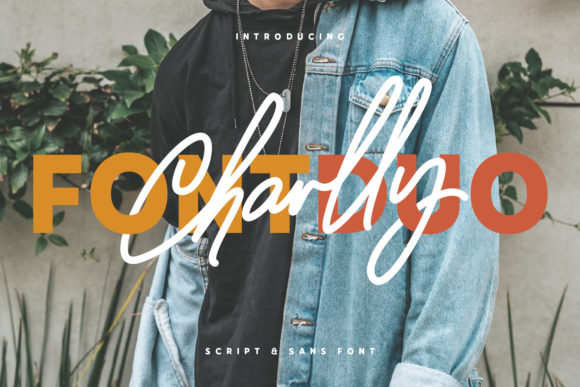
Charlly Font: Elevate Your Designs with Elegance and Chic
In the world of typography, fonts play a crucial role in conveying the tone and personality of a design. When it comes to creating elegant and chic designs, the right font combination can make all the difference. This is where Charlly Font and Charlly Duo come in – a match made in heaven that can elevate your designs to new heights. In this article, we’ll explore the world of Charlly Font and Charlly Duo, and how combining these two display fonts can give your next design an unparalleled level of sophistication.
What is Charlly Font?
Charlly Font is a stunning display font that exudes elegance and refinement. With its sleek lines, beautiful curves, and intricate details, Charlly Font is perfect for designs that require a touch of luxury and sophistication. Whether you’re working on a branding project, a wedding invitation, or a high-end product advertisement, Charlly Font is sure to make a lasting impression.
One of the standout features of Charlly Font is its versatility. It can be used in a variety of design contexts, from headlines and titles to body text and captions. Its clean and crisp lines make it easy to read, even at small sizes, while its elegant curves and flourishes add a touch of personality and flair.
What is Charlly Duo?
Charlly Duo, on the other hand, is a font combination that pairs Charlly Font with a complementary font, creating a match made in heaven. The duo is designed to provide a harmonious and balanced look, with each font complementing the other’s strengths and weaknesses. The result is a font combination that is both elegant and chic, perfect for designs that require a high level of sophistication.
Charlly Duo is more than just a font combination – it’s a design solution that can elevate your work to new heights. By pairing Charlly Font with a complementary font, you get a unique and harmonious look that is sure to capture the attention of your audience.
Why Combine Charlly Font and Charlly Duo?
So, why combine Charlly Font and Charlly Duo? The answer lies in the benefits that this font combination offers. By pairing these two display fonts, you get:
- Elegance and Sophistication: Charlly Font and Charlly Duo are designed to provide an elegant and sophisticated look that is perfect for high-end designs.
- Versatility: The font combination can be used in a variety of design contexts, from branding and advertising to wedding invitations and event marketing materials.
- Harmony and Balance: The fonts are designed to work together in harmony, creating a balanced look that is easy on the eyes.
- Personality and Flair: The font combination adds a touch of personality and flair to your designs, setting them apart from the competition.
How to Use Charlly Font and Charlly Duo
Using Charlly Font and Charlly Duo is easy. Here are some tips to get you started:
- Pair Charlly Font with a Complementary Font: Experiment with different font combinations to find the perfect match for Charlly Font.
- Use Charlly Font for Headlines and Titles: Take advantage of Charlly Font’s elegant lines and curves to create stunning headlines and titles.
- Use Charlly Duo for Body Text: Use the complementary font in Charlly Duo for body text and captions to create a harmonious and balanced look.
- Experiment with Different Sizes and Colors: Don’t be afraid to experiment with different sizes and colors to find the perfect combination for your design.
Tips and Tricks for Working with Charlly Font and Charlly Duo
Here are some additional tips and tricks for working with Charlly Font and Charlly Duo:
- Pay Attention to Kerning and Tracking: Make sure to adjust the kerning and tracking to ensure that the fonts look balanced and harmonious.
- Use the Fonts in Context: Use the fonts in context to ensure that they work well with other design elements, such as images and graphics.
- Experiment with Different Font Weights: Experiment with different font weights to add depth and interest to your design.
- Don’t Overdo It: Don’t overdo it with too many fonts or font styles – keep it simple and elegant.
| Font Name | Charlly Font |
In conclusion, Charlly Font and Charlly Duo are a match made in heaven that can elevate your designs to new heights. With their elegant lines, beautiful curves, and intricate details, these two display fonts are perfect for designs that require a touch of luxury and sophistication. By combining Charlly Font and Charlly Duo, you get a unique and harmonious look that is sure to capture the attention of your audience.
So, what are you waiting for? Give Charlly Font and Charlly Duo a try today and see the difference for yourself.
- What is Charlly Font? Charlly Font is a stunning display font that exudes elegance and refinement.
- What is Charlly Duo? Charlly Duo is a font combination that pairs Charlly Font with a complementary font, creating a match made in heaven.
- How do I use Charlly Font and Charlly Duo? Use Charlly Font for headlines and titles, and Charlly Duo for body text and captions. Experiment with different sizes and colors to find the perfect combination for your design.